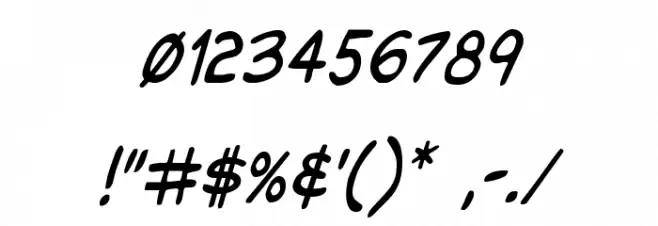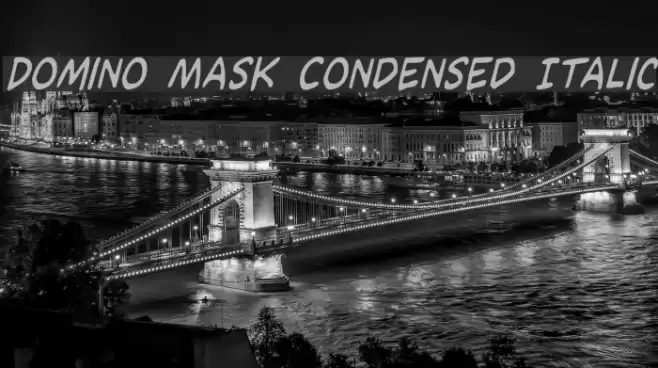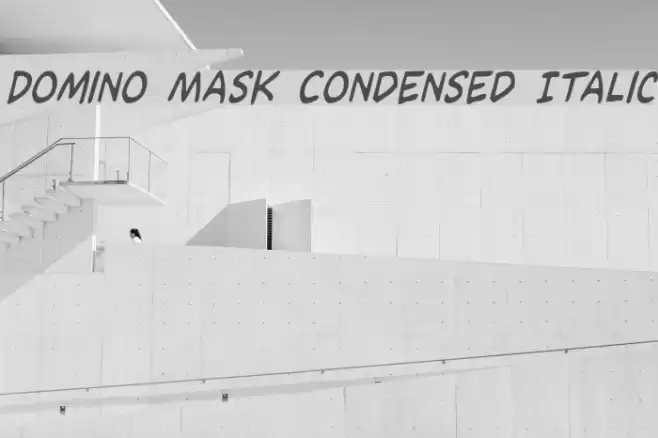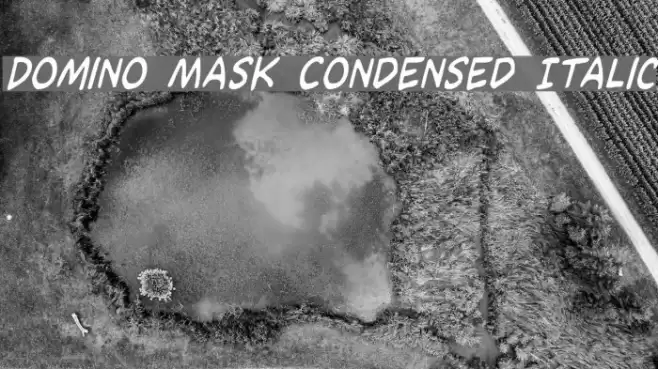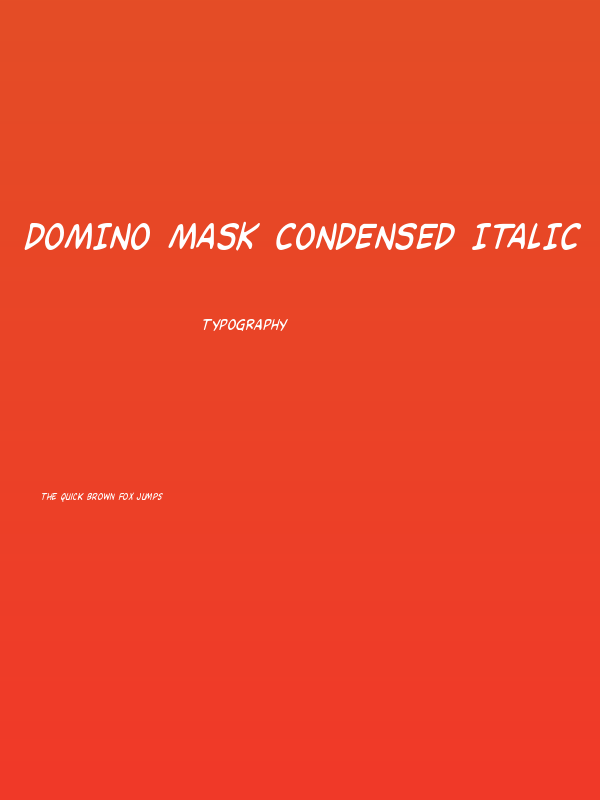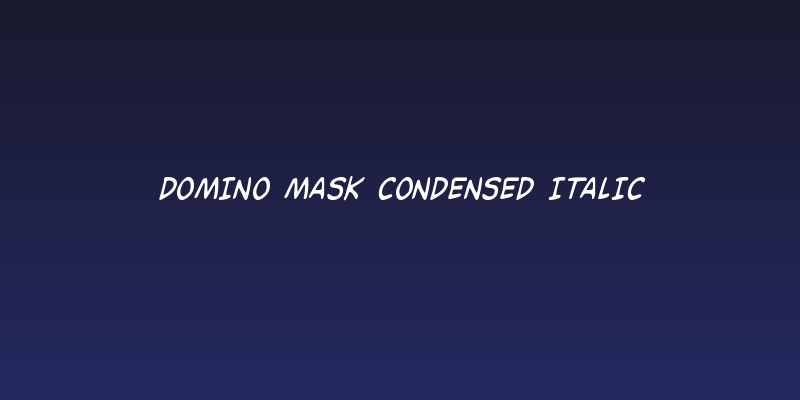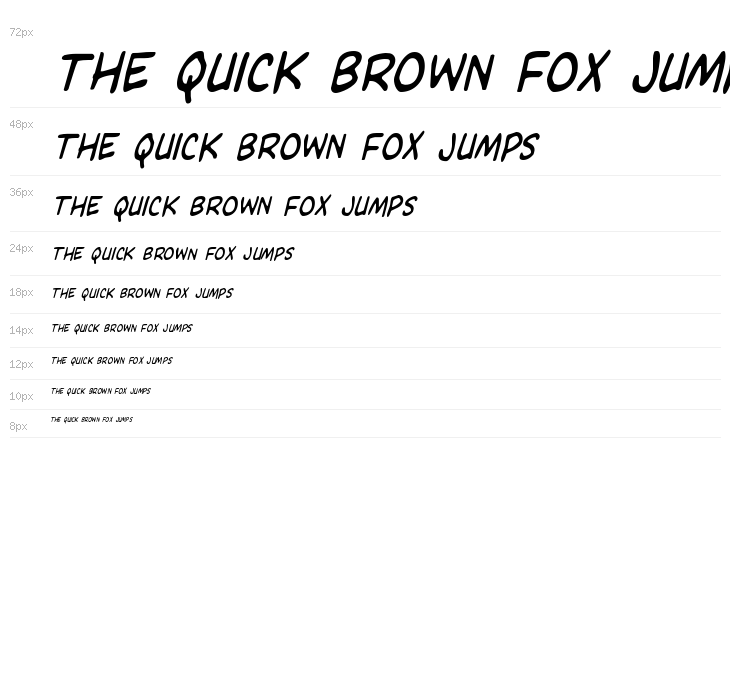
Domino Mask Condensed Italic Font
Domino Mask Condensed Italic Description
This font features a playful and dynamic style, characterized by its condensed and italicized form. The letters are slightly slanted, giving a sense of motion and energy. The strokes are smooth and rounded, with a consistent thickness that maintains readability while adding a touch of flair. The font includes both uppercase and lowercase letters, numerals, and a variety of special characters, making it versatile for various design needs. Its condensed nature allows for efficient use of space, making it suitable for headlines and titles where space is limited.
| Overall Style | Playful, Dynamic |
| Proposed Projects | Ideal for comic book titles, playful branding, children's book covers, and dynamic posters. |